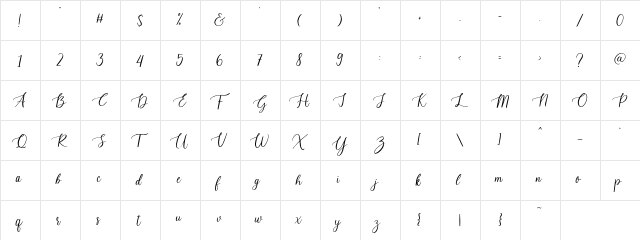
Scary_Ghost_Script Regular
Design Context for Scary_Ghost_Script Typeface
Scary_Ghost_Script leans into the macabre with letterforms designed to disturb and intrigue in equal measure.
Ideal for Halloween projects, horror film titles, haunted house signage, and dark editorial design.
Font Pairing: Pair with a clean neutral sans-serif for body copy to let Scary_Ghost_Script's character lead without overwhelming the composition.
Pro Tip: Scary_Ghost_Script works best as a headline or focal element. Pair it against plain, neutral body text to amplify the contrast.